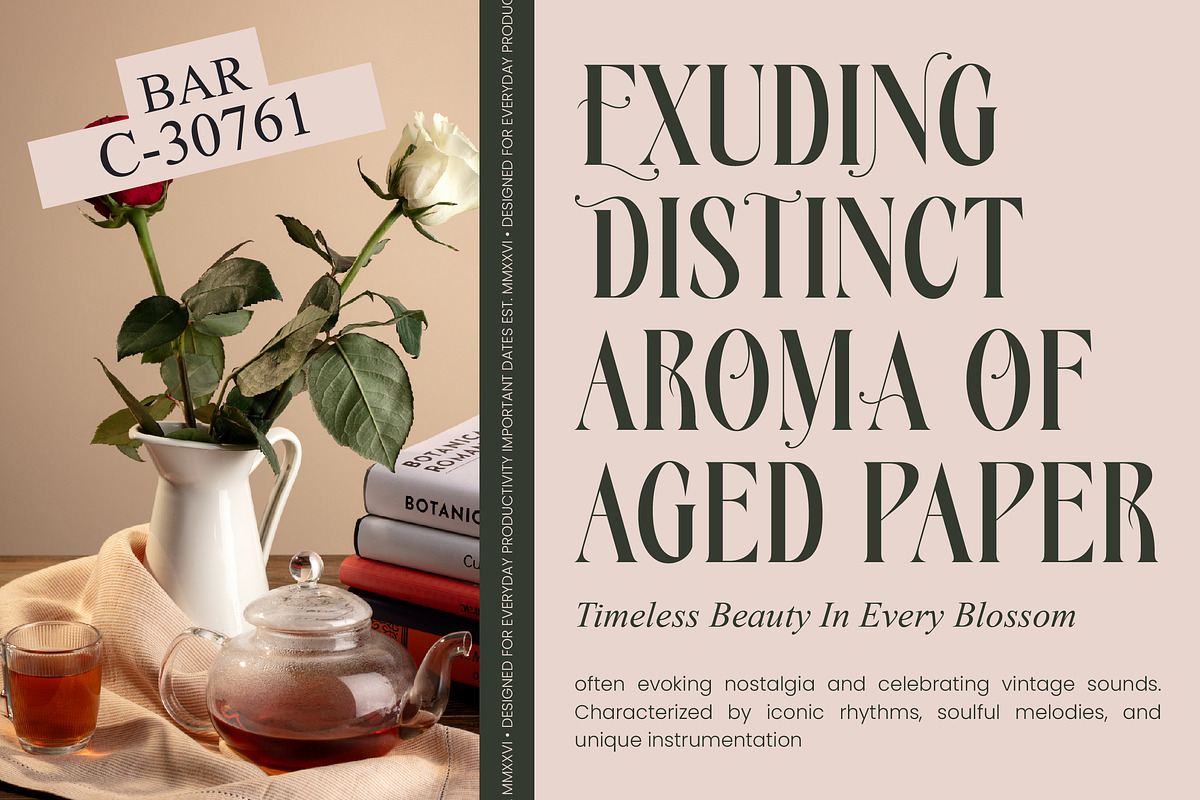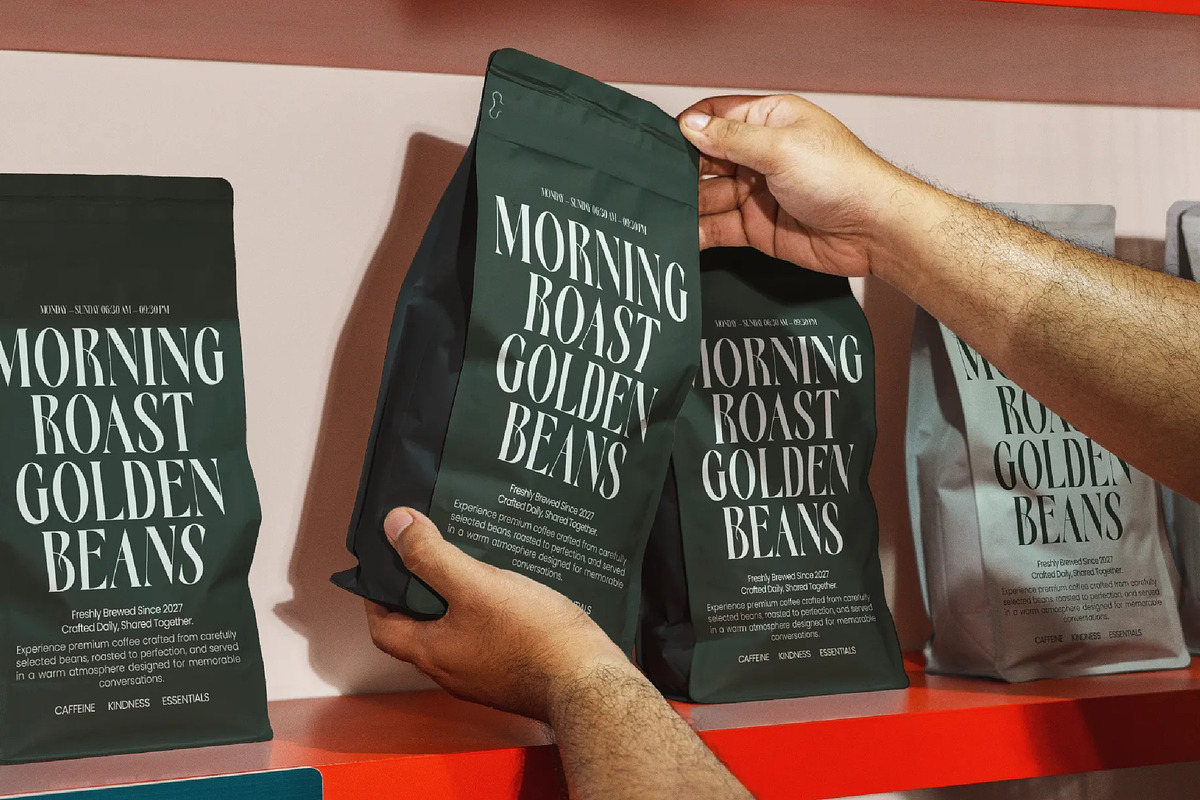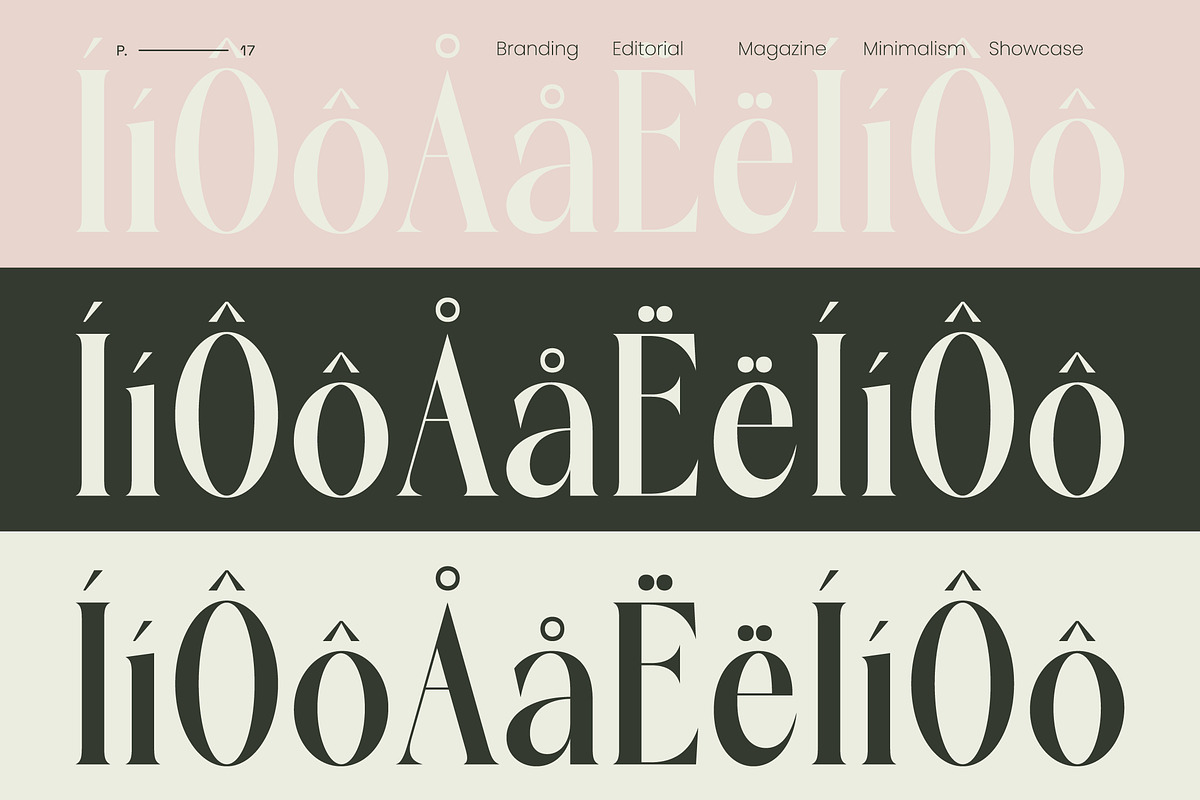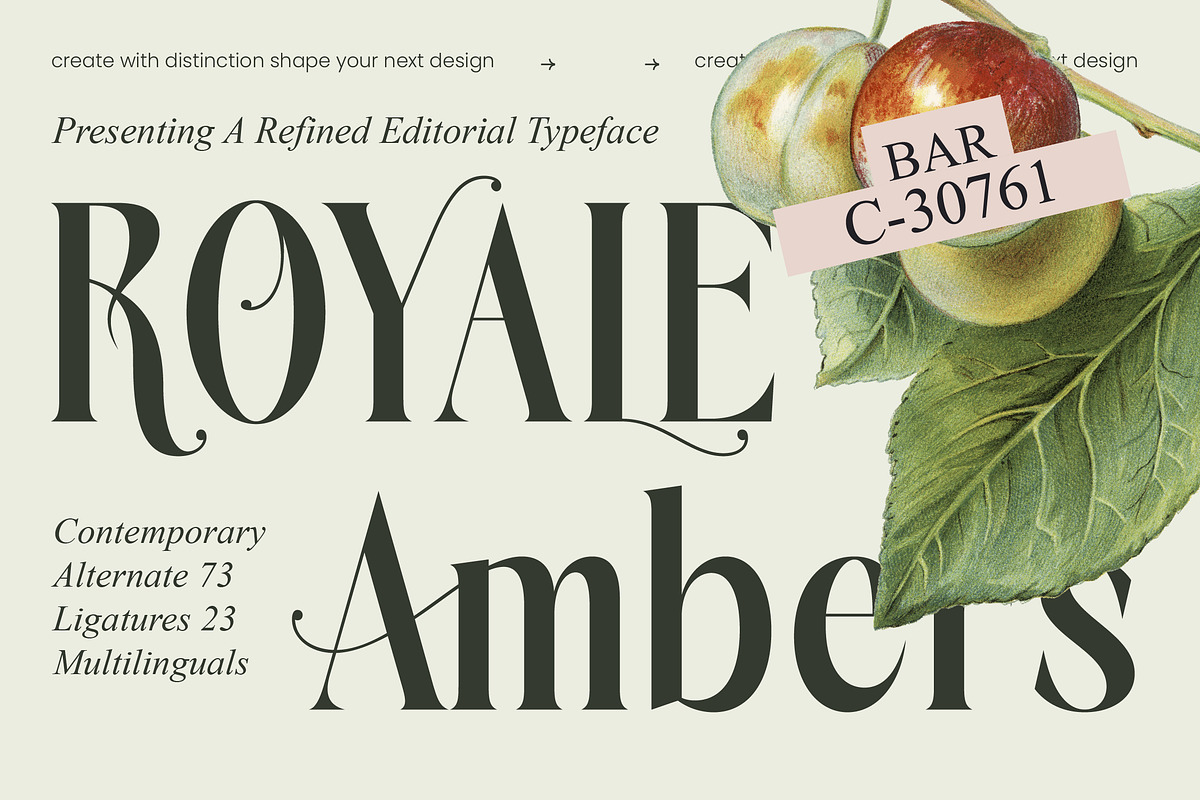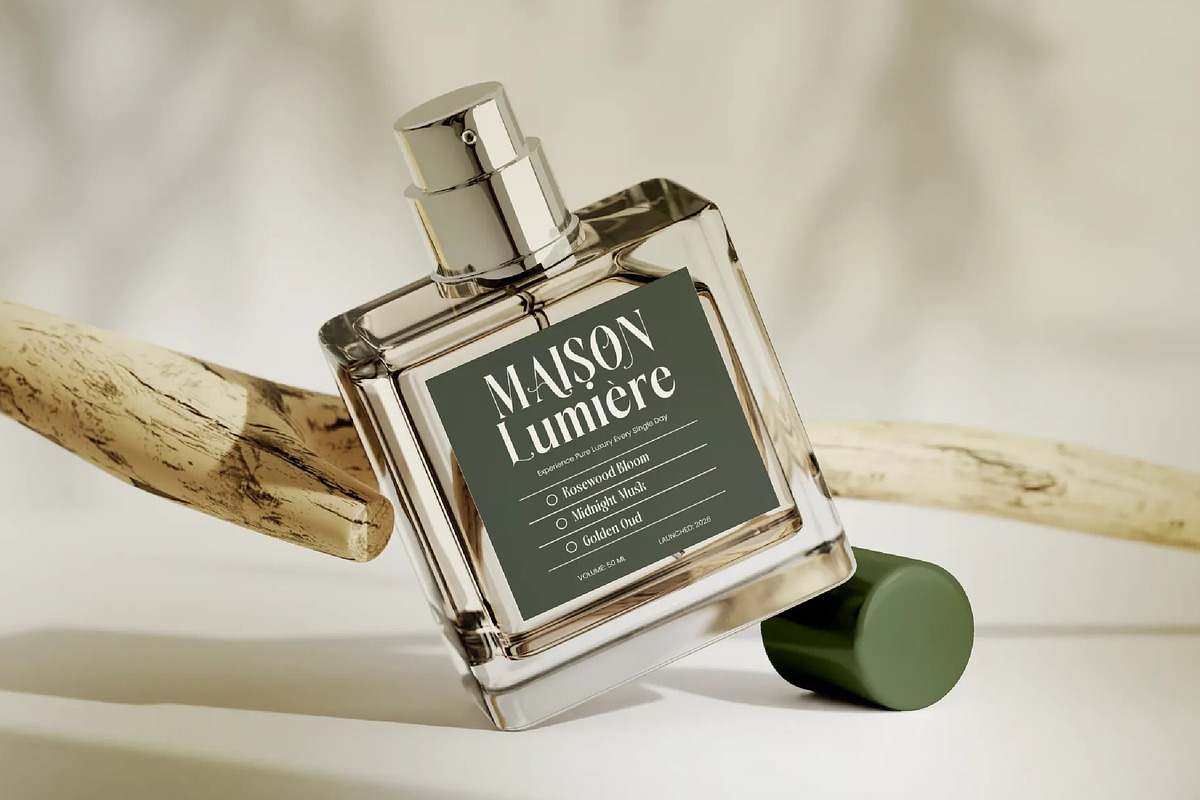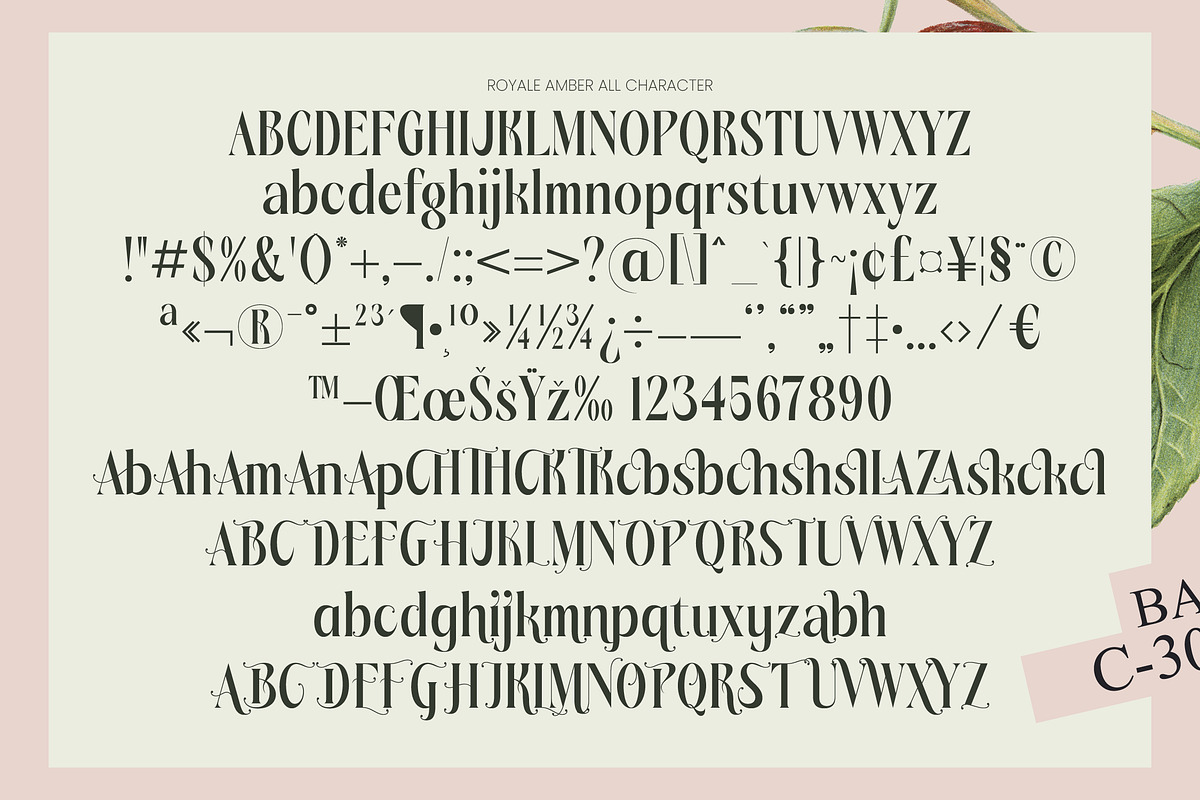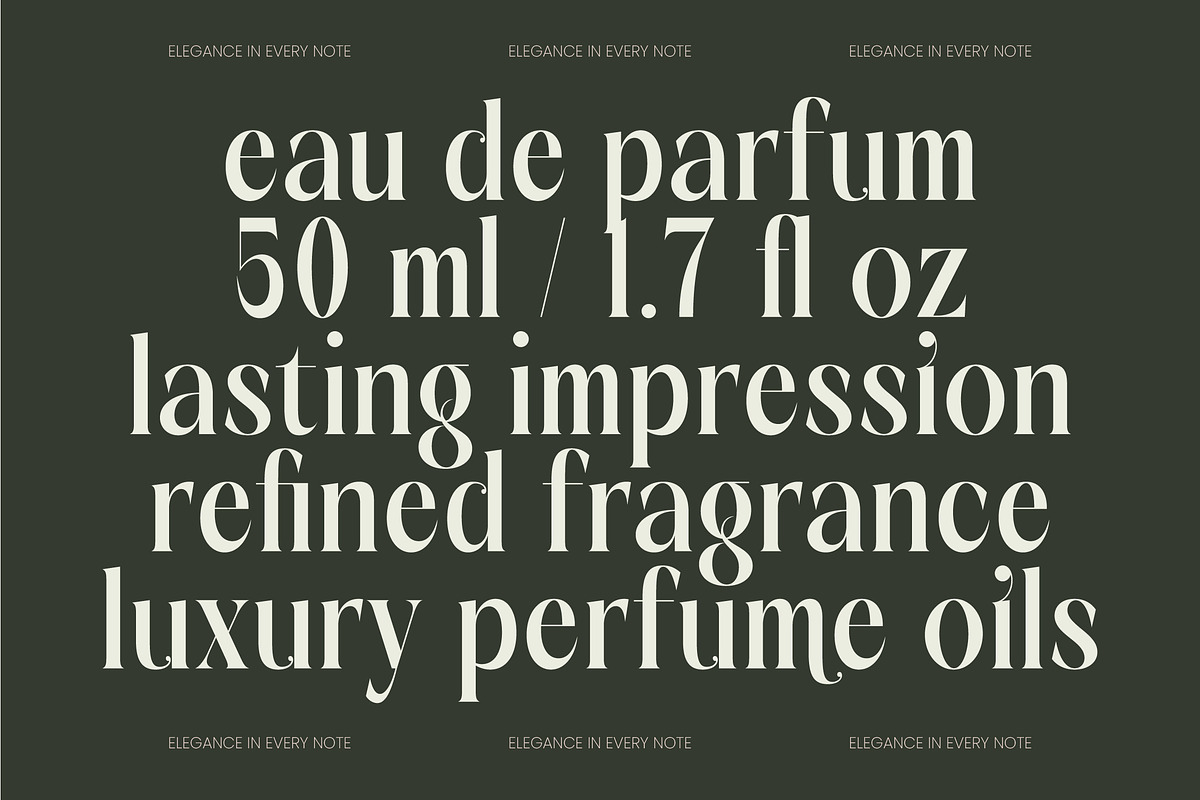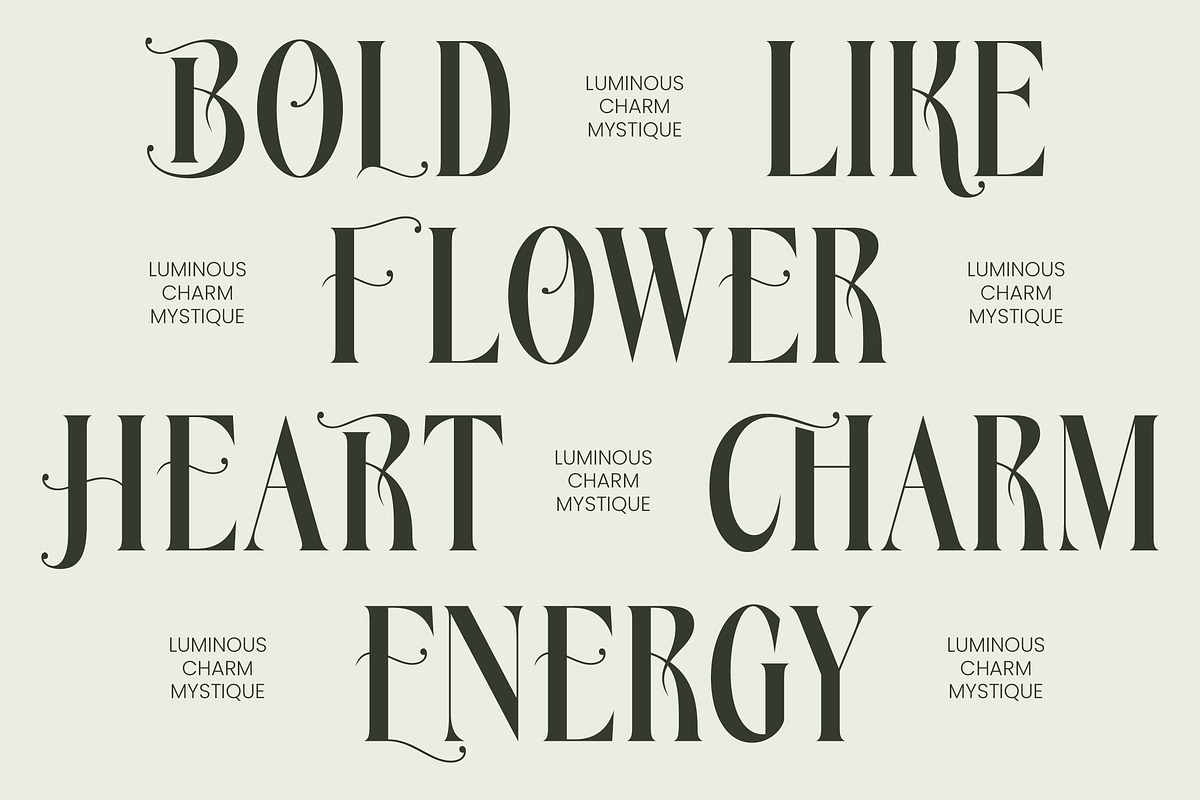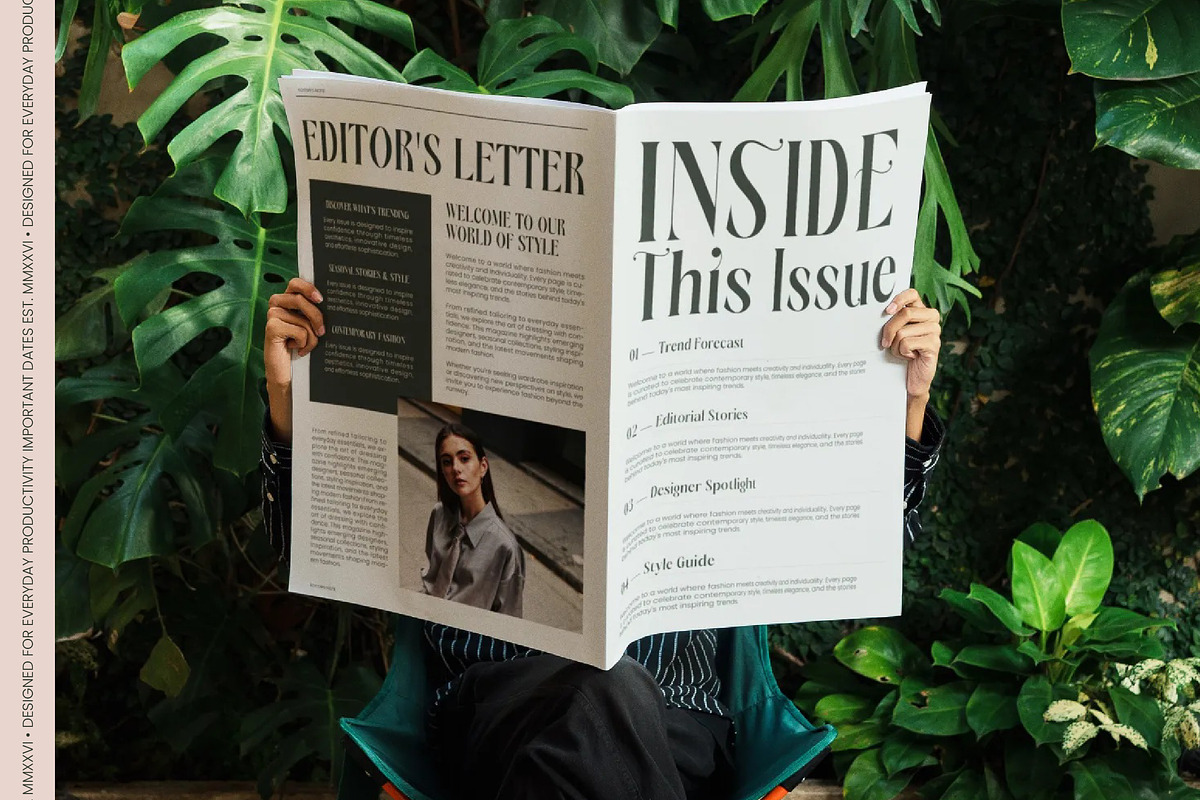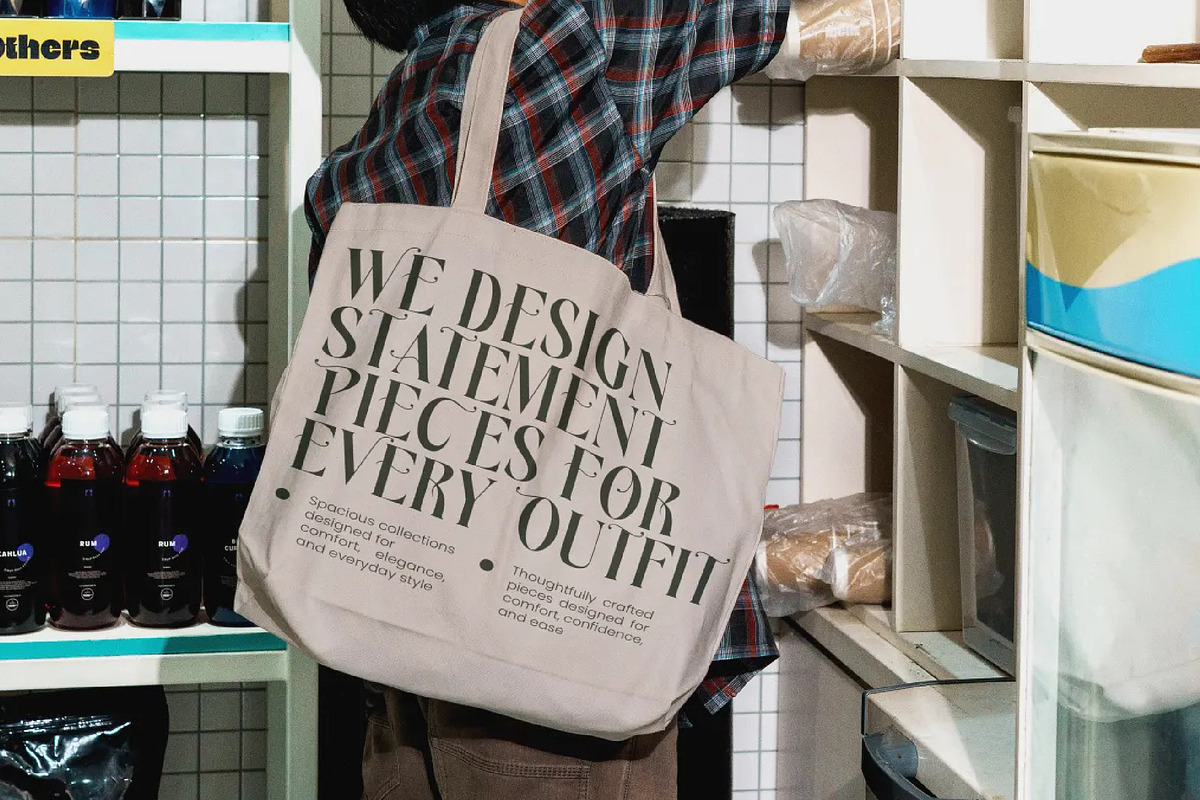
Royale Ambers Editorial Serif
Royale Ambers - Editorial Serif , Step into a world of timeless elegance where every curve tells a story of sophistication and grace. Royale Ambers is more than just a typeface; it is a refined editorial statement designed to elevate your visual narrative to new heights of prestige.
Drawing inspiration from the golden age of high-fashion magazines and the delicate textures of artisanal paper, this font captures a unique blend of heritage and contemporary flair. It evokes the feeling of a quiet afternoon in a sun-drenched library, where classic beauty meets modern innovation.
This modern serif display is meticulously crafted to deliver maximum branding impact with its stunning high-contrast serif letterforms. Perfectly suited for luxury typography, it functions as a versatile editorial font that commands attention while maintaining a sense of effortless poise and curated style.
As the modern serif trend continues to dominate the creative landscape, this typeface stands out as a leader in editorial display fonts. It embraces the demand for character-driven typography that breaks away from the generic, offering designers a tool to create truly memorable and distinct visual identities.
Designers will find endless possibilities for this typeface across diverse sectors, including high-end logo design and comprehensive corporate branding projects. It is an ideal choice for high-gloss editorial layouts, premium packaging for beauty products, romantic wedding stationery, and the fast-paced world of fashion advertising.
Beyond its stunning aesthetics, the font includes a rich set of 23 ligatures and 73 alternates to provide endless creative flexibility. With expressive swashes and full multilingual support including international characters, this font ensures your message is conveyed beautifully across the globe.